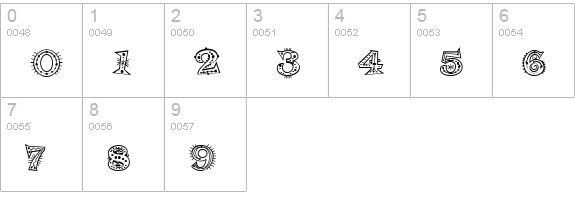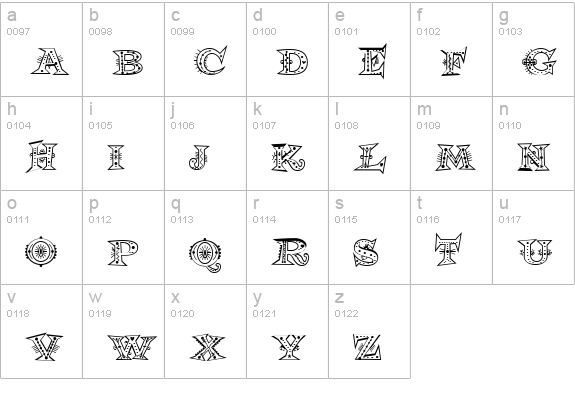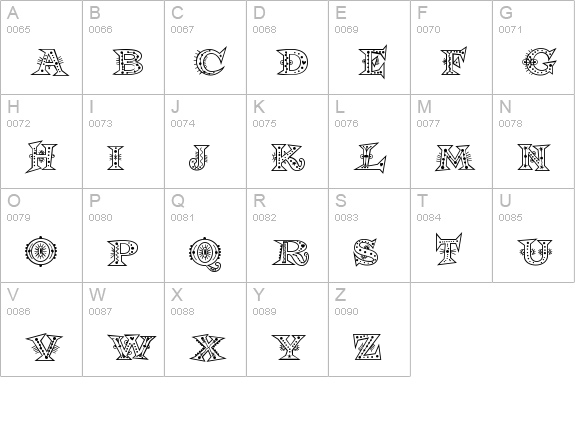
Cool Cat Jim NF Font Details
Cool Cat Jim NF font is a stylish and modern typeface that exudes a cool and confident vibe. With its sleek lines and playful curves, this font is perfect for adding a touch of personality to your designs. The free-spirited nature of Cool Cat Jim NF font makes it versatile for various projects, from branding to social media graphics. The best part about Cool Cat Jim NF font is that it is completely free to download at FontsMarket.com. Whether you're a designer looking for a fresh new font to add to your collection or just someone looking to spice up their social media posts, Cool Cat Jim NF font is the perfect choice. Don't miss out on this fantastic opportunity to enhance your projects with this eye-catching and stylish font!